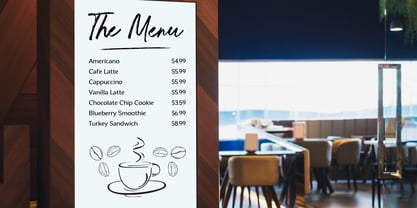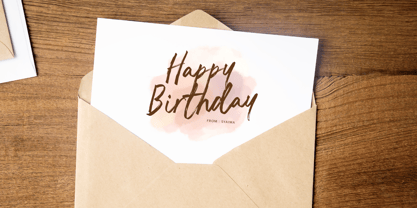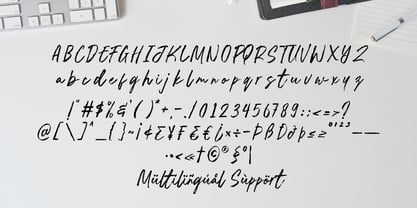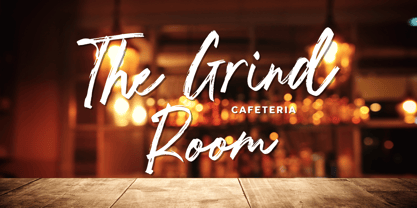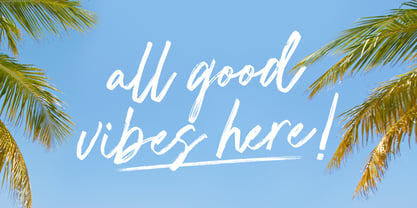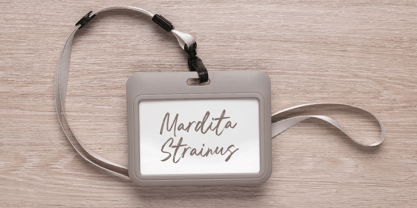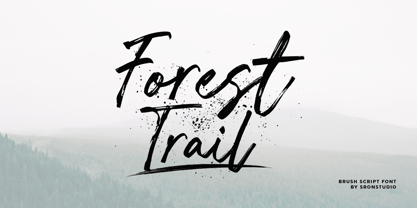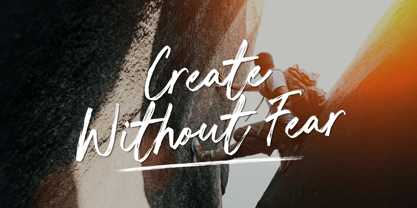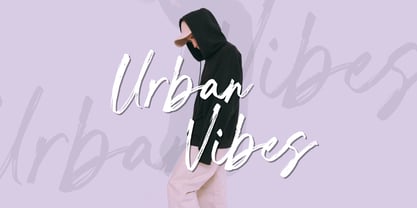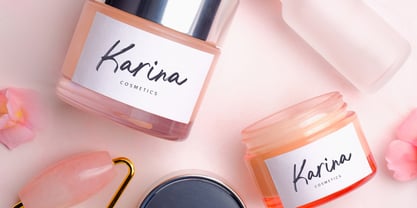
Forest Trail
The Forest Trail Font Family was designed by Muhamad Yusron Billah and published by Sronstudio. Forest Trail contains 1 styles.
Forest Trail is a bold and energetic brush script font that captures the spirit of adventure and the beauty of hand-drawn artistry. With its dynamic strokes and natural flow, this font is perfect for logos, posters, apparel, branding, and projects that need a rugged yet stylish touch.
- Uppercase & lowercase characters
- Numerals & punctuation
- Multilingual support